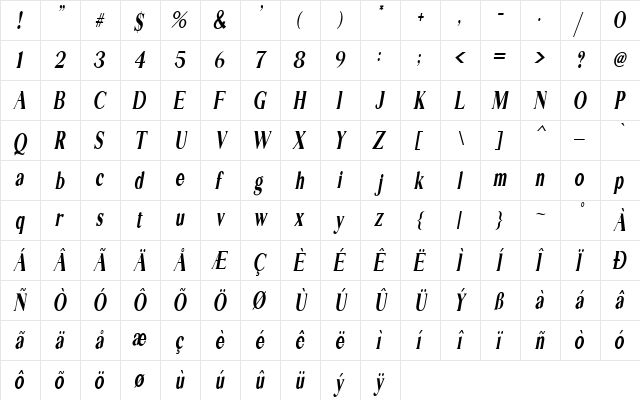
EXTRA Serif Italic Font Preview
EXTRA Serif Italic
EXTRA Serif Italic Font Details
| Foundry | 177Studio |
| Designer | 177Studio |
Design Context for EXTRA Serif Typeface
EXTRA Serif brings classic typographic sensibility to the table — its serifs and measured letterforms reflect centuries of print heritage. The dynamic lean of this cut emphasises speed and emphasis in any layout.